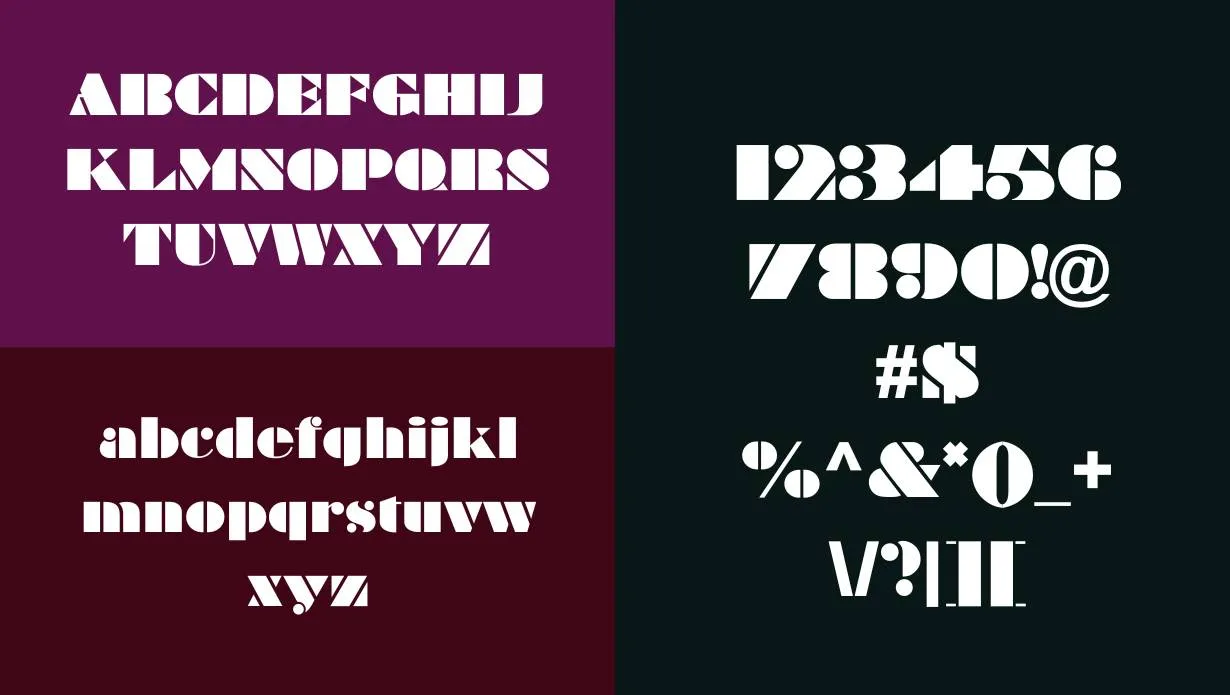
Braggadocio Font provides a bold and impactful design that is commonly utilized in headlines, posters, and graphic design to make a powerful visual statement.
Its robust letterforms add an element of power and memorability to your designs.
Braggadocio Font Family
| Name | Braggadocio Font |
| Designer | W.A. Woolley |